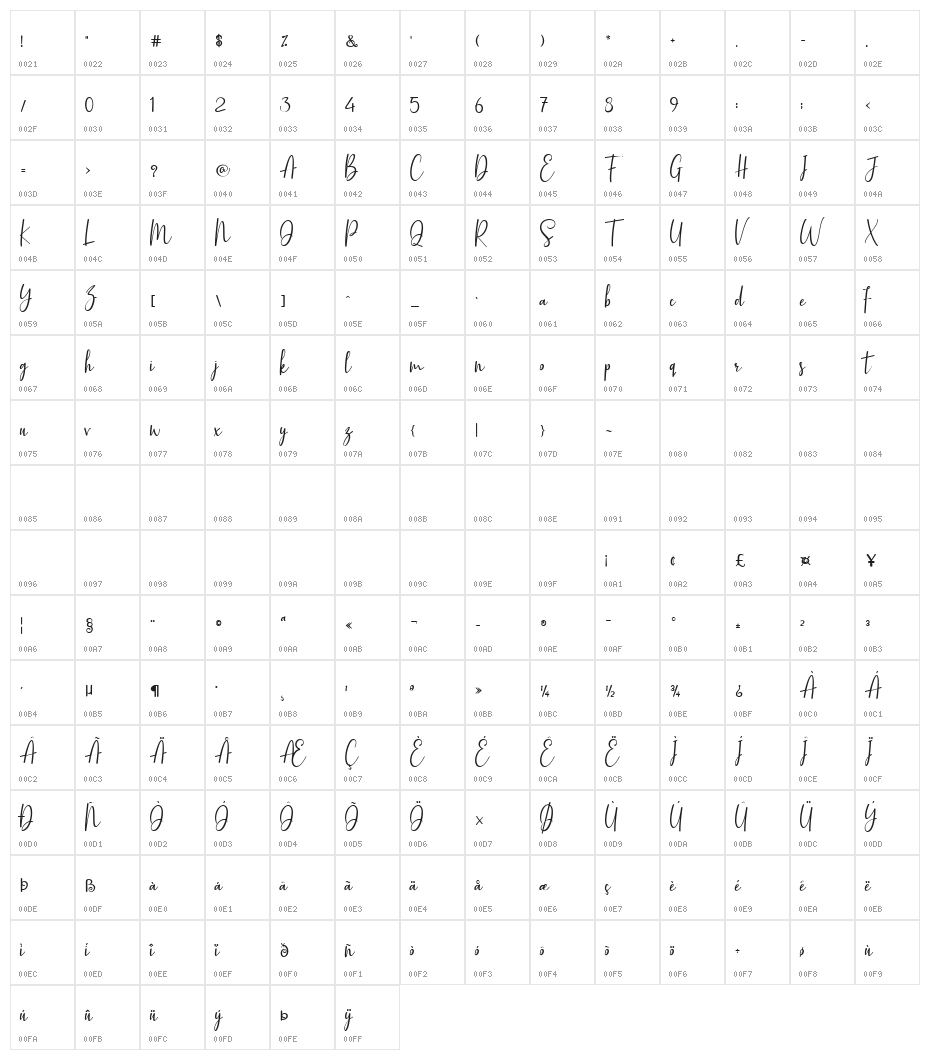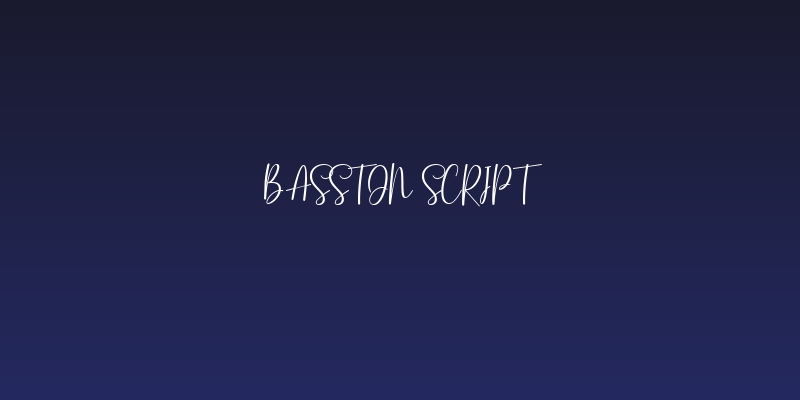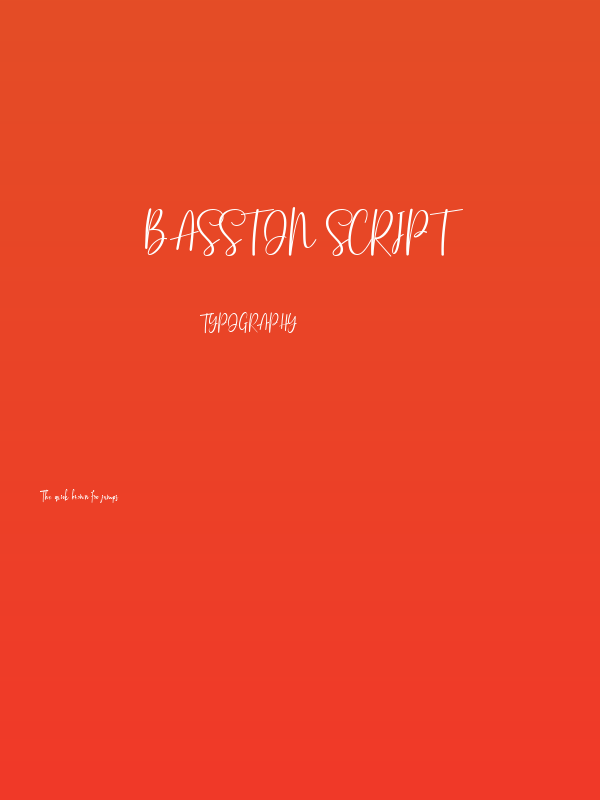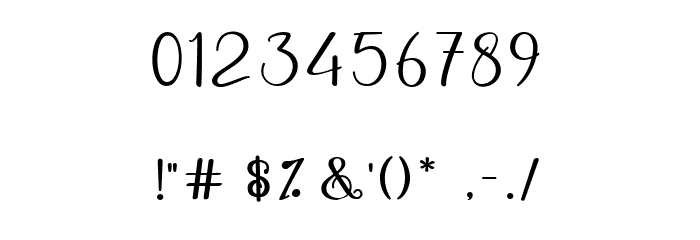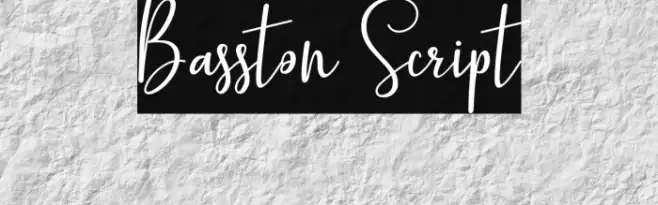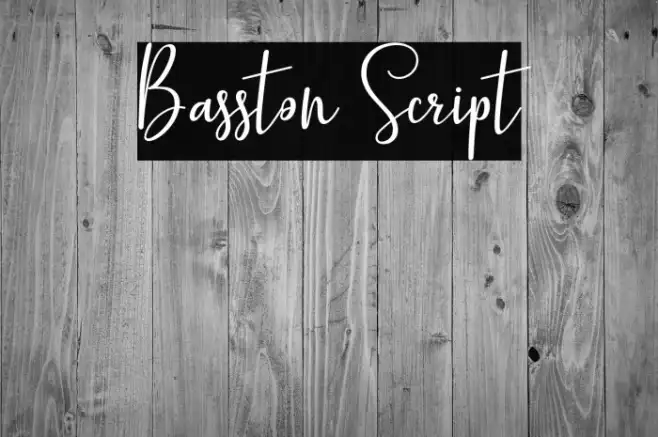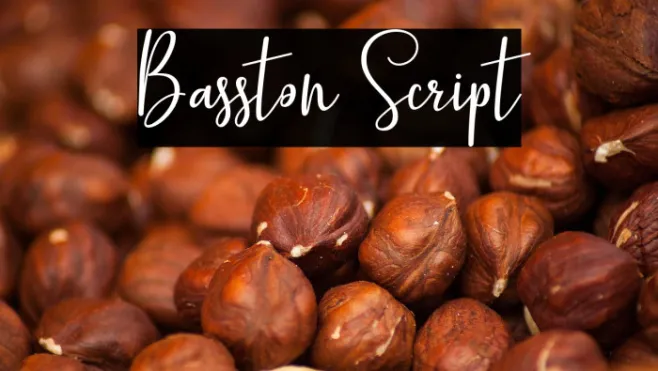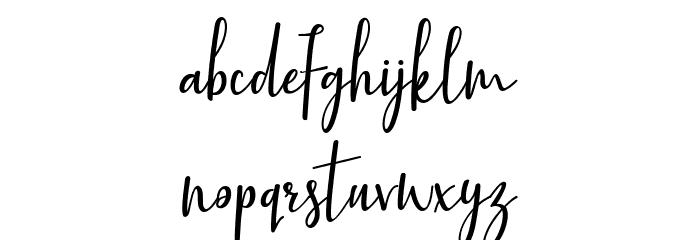
Basston Script Font
Basston Script Description
This font exudes a lively and elegant script style, characterized by its flowing, cursive letterforms. The uppercase letters are tall and graceful, with sweeping curves and loops that add a sense of movement and sophistication. The lowercase letters maintain a consistent flow, complementing the uppercase with their smooth, connected strokes. Numbers and special characters are designed to match the overall aesthetic, ensuring a cohesive look across all text. The font's playful yet refined nature makes it ideal for projects that require a personal touch, such as invitations, greeting cards, and branding materials.